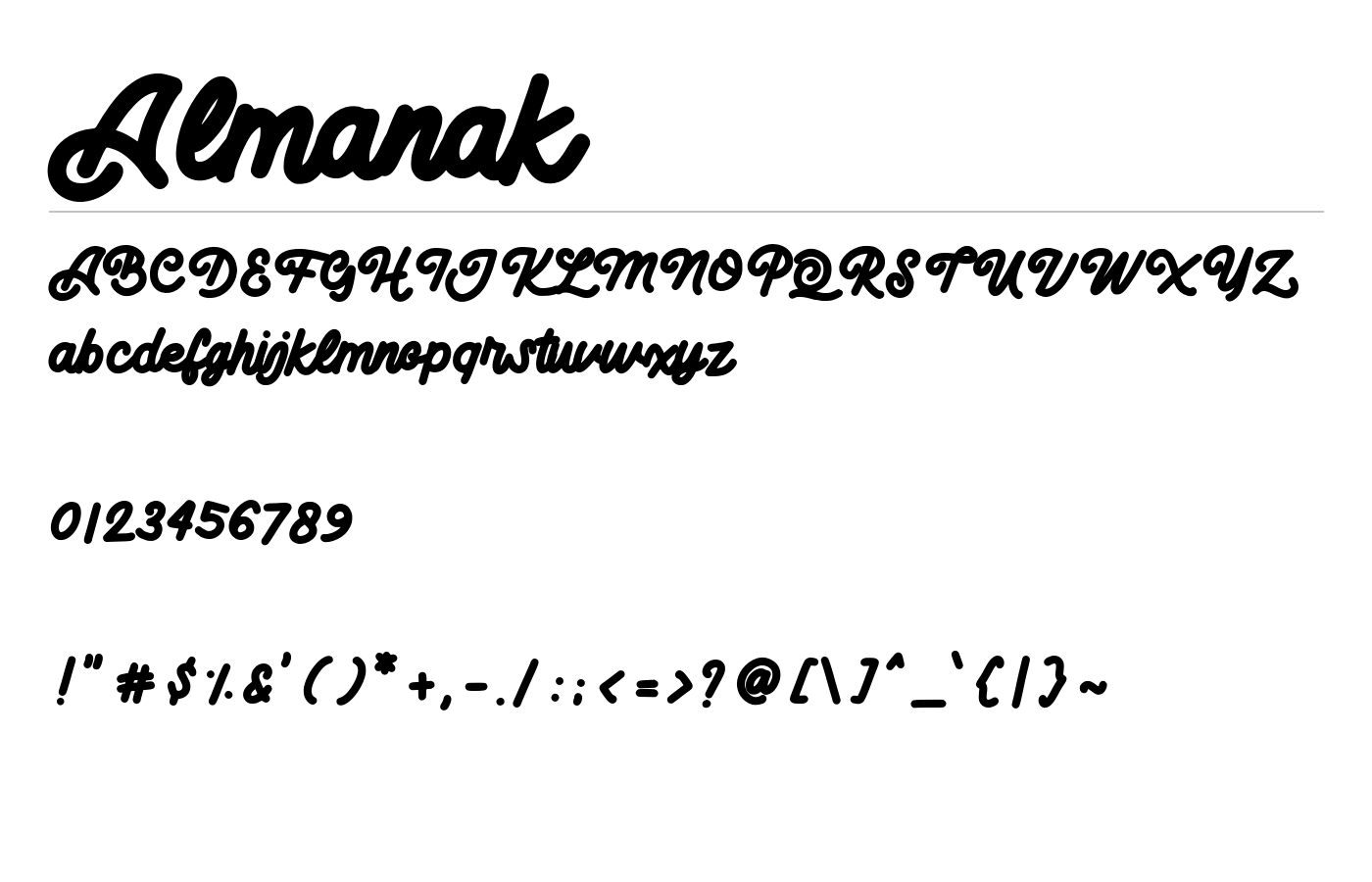
Almanak is a bold, playful script font with smooth, rounded strokes and lively letterforms that convey a warm, approachable vibe. Its flowing, connected characters and moderate contrast make it ideal for eye-catching headlines, branding, and packaging that seek a friendly, informal touch. This font works wonderfully in creative projects looking to add personality and charm while maintaining readability.
Almanak Font